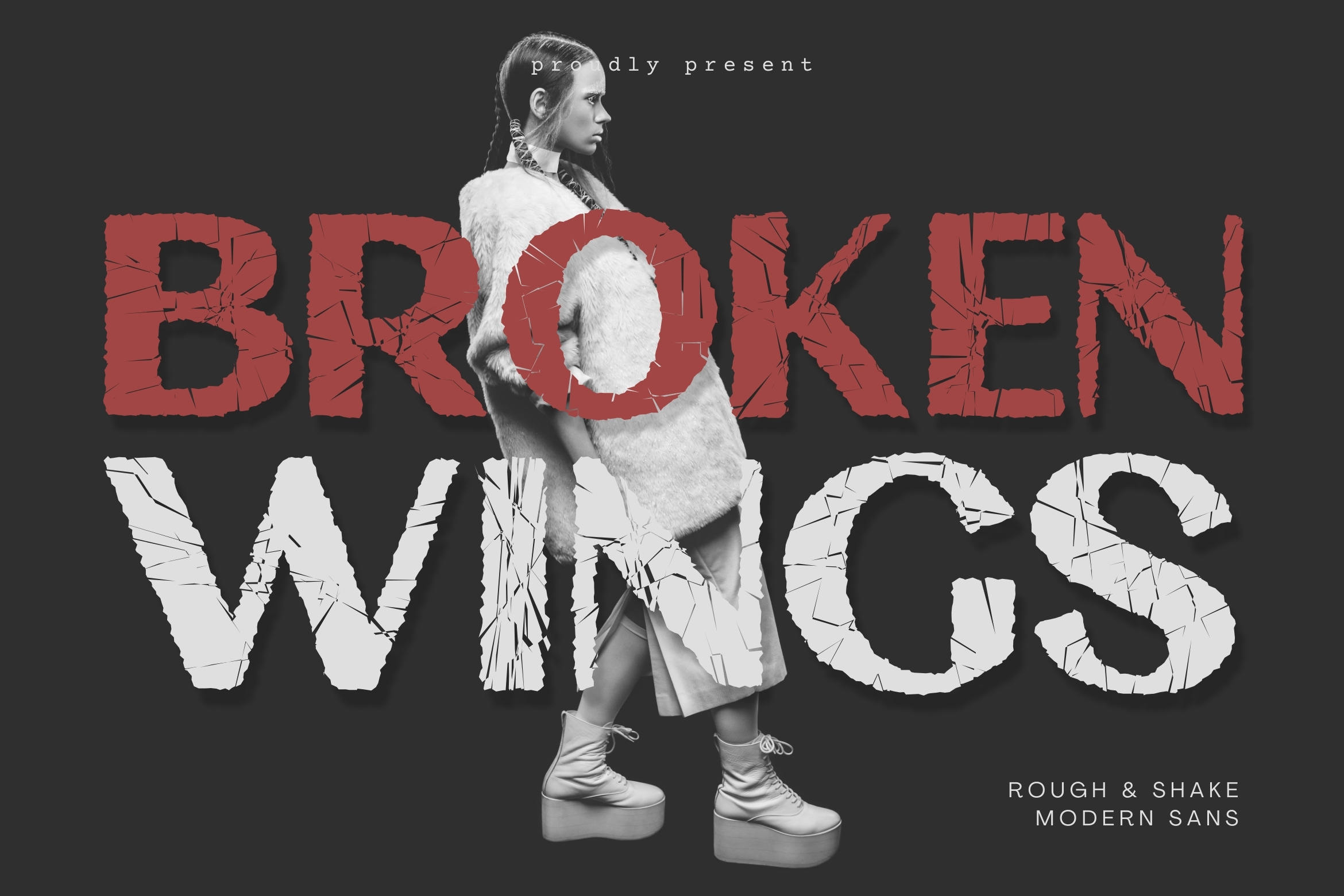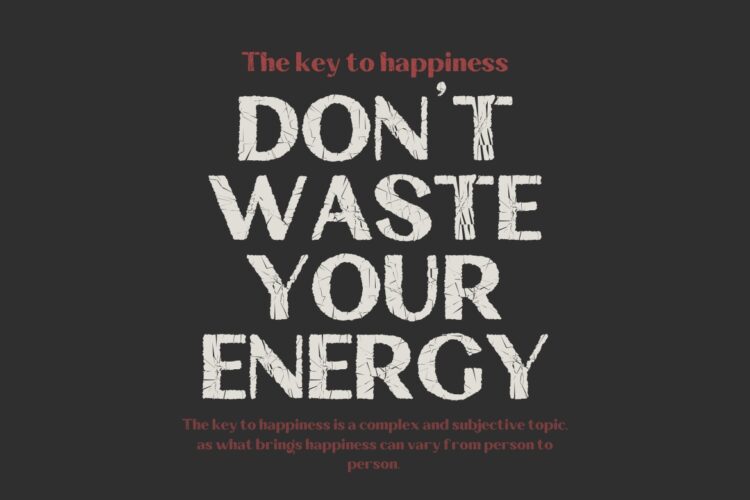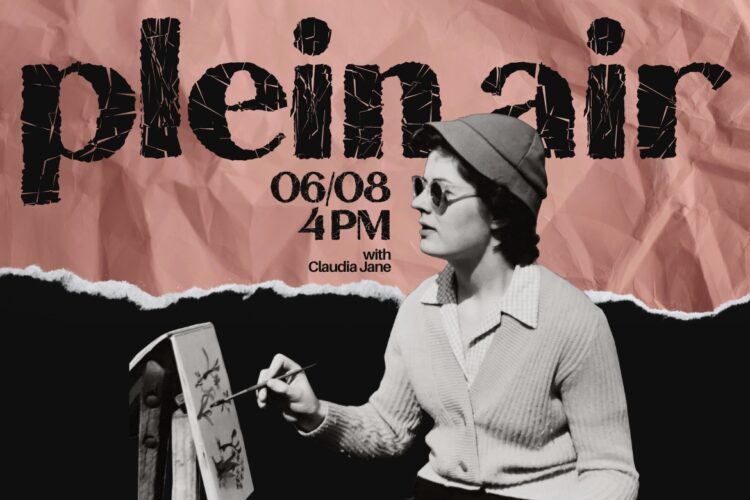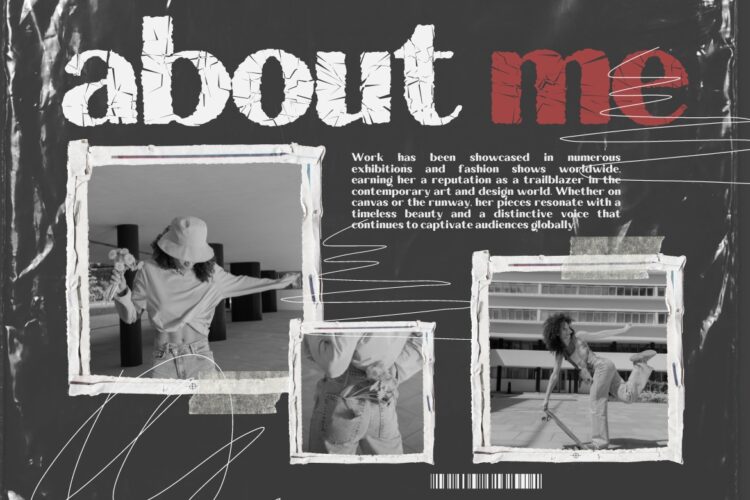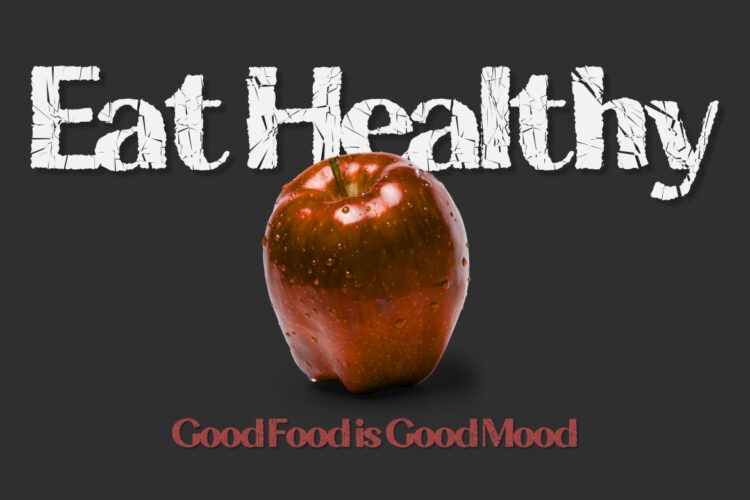
Broken Wings – Rough & Shake Modern Sans
Introducing our new Broken Wings, Rough & Shake Modern Sans font with elegant style this is perfect for branding, logos, invitation, magazines, product packaging and more.